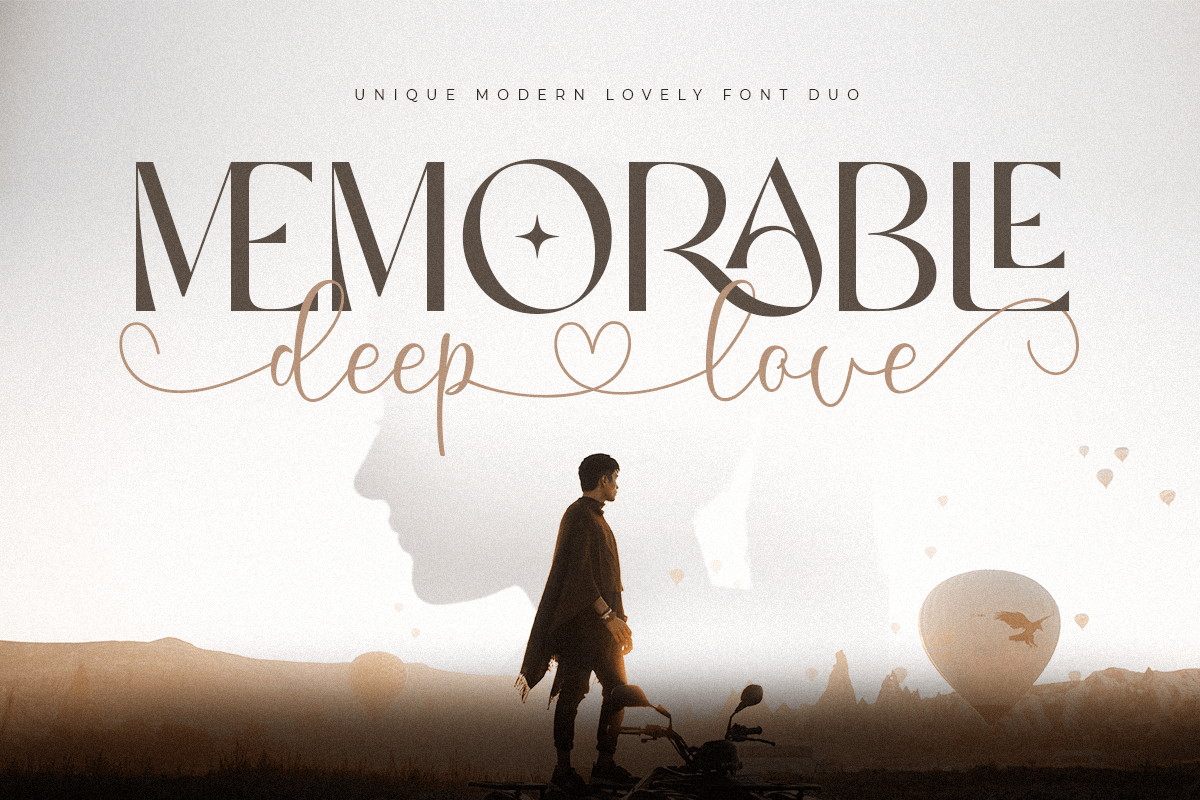
Memorable Deep Love
-Unique Modern Lovely Font Duo
Memorable Deep Love is a Unique Modern Lovely Font Duo best for a brand, sign, and any purpose design.
Based on our experience as a graphic designer who works for a lot of companies, we often are requested to create a classy design. So, here we try to brainstorming and create this font duo to make the idea is going out. This is perfect for BRANDING and ANY PURPOSE DESIGN. You will get classy, elegant, and certainly unique font.